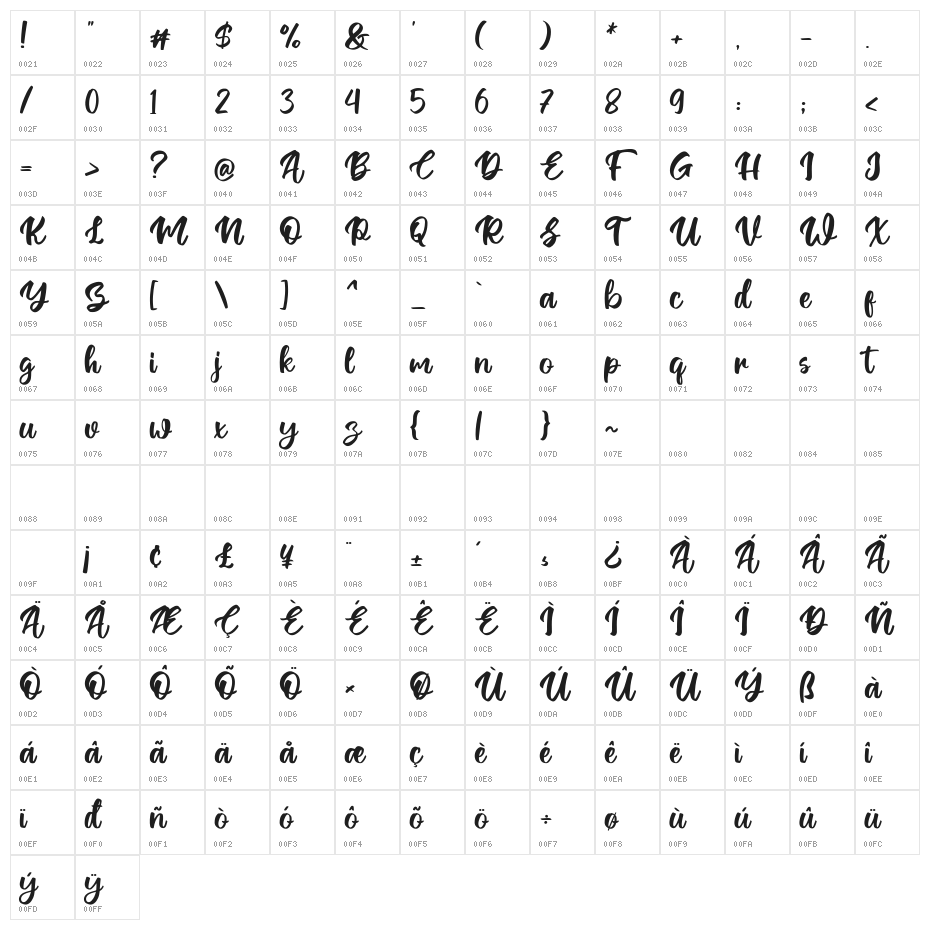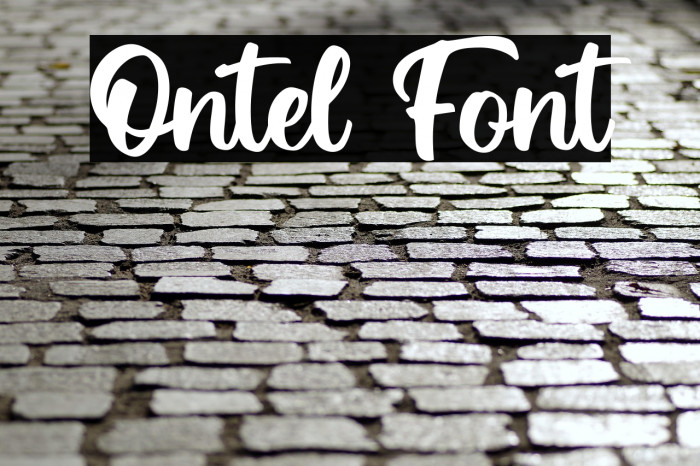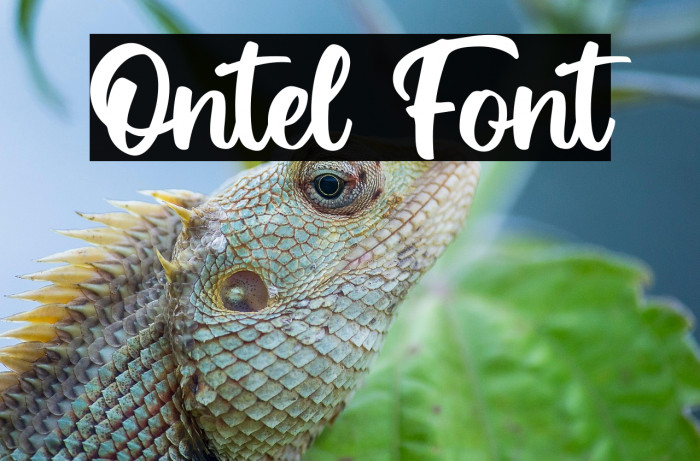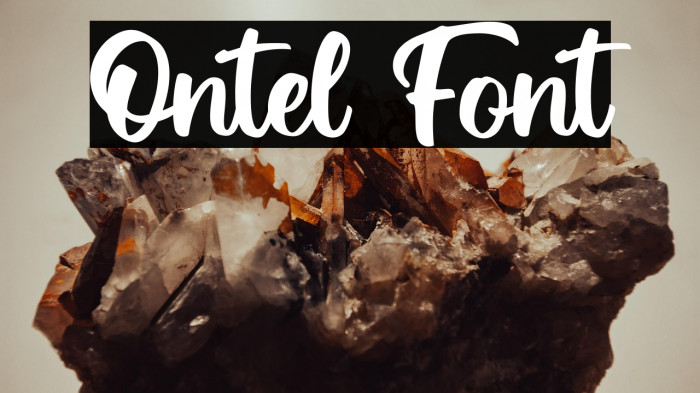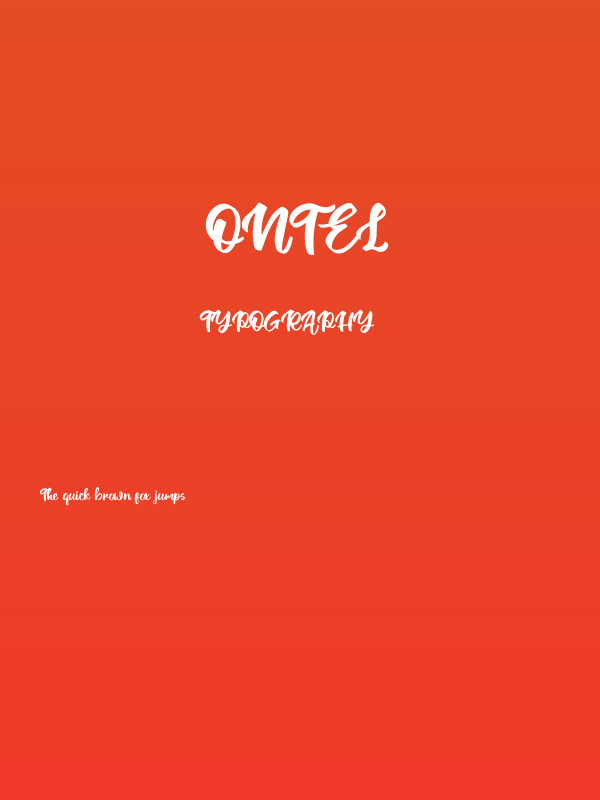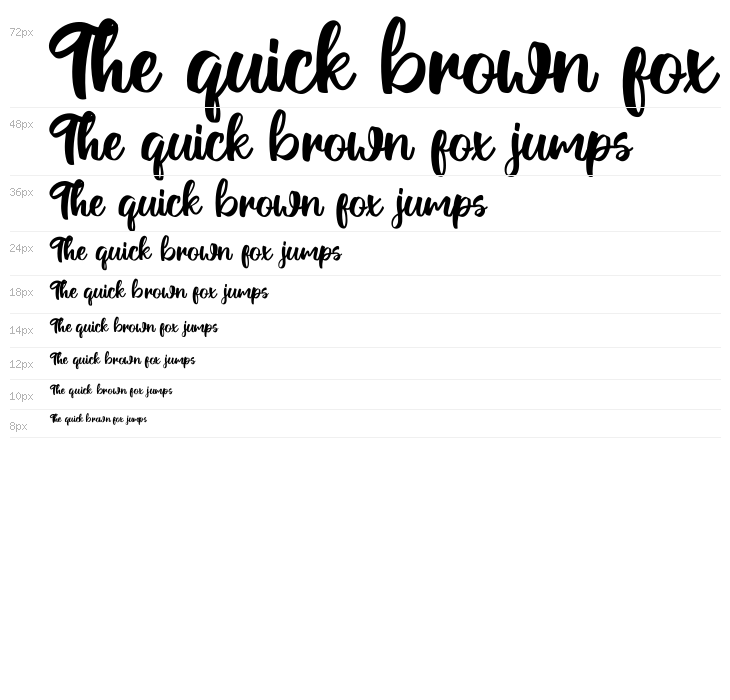
Ontel Font
Ontel Description
This font features a bold, flowing script style with a modern and playful aesthetic. The characters are interconnected, giving it a handwritten feel that is both elegant and casual. The uppercase letters are slightly larger and more pronounced, while the lowercase letters maintain a consistent flow. The numbers and special characters are designed to match the overall style, ensuring a cohesive look across all text. The strokes are thick and consistent, providing a strong visual impact. This font is suitable for creative projects where a personal touch is desired.